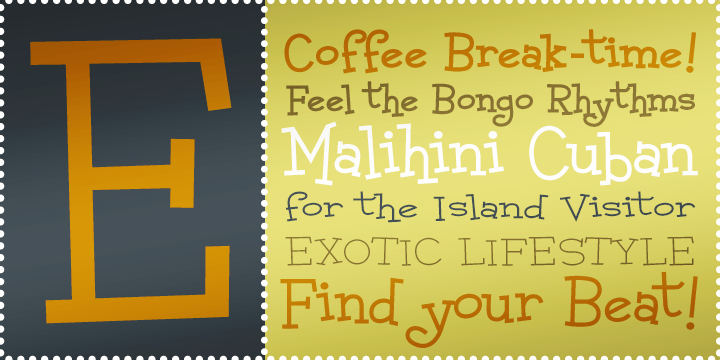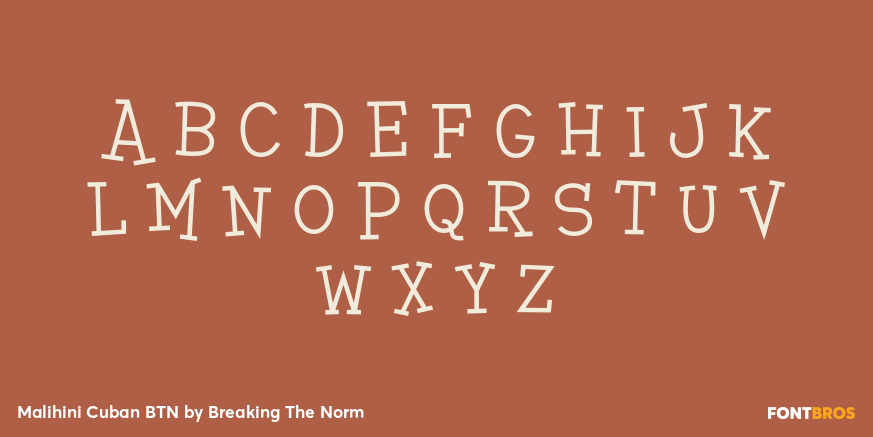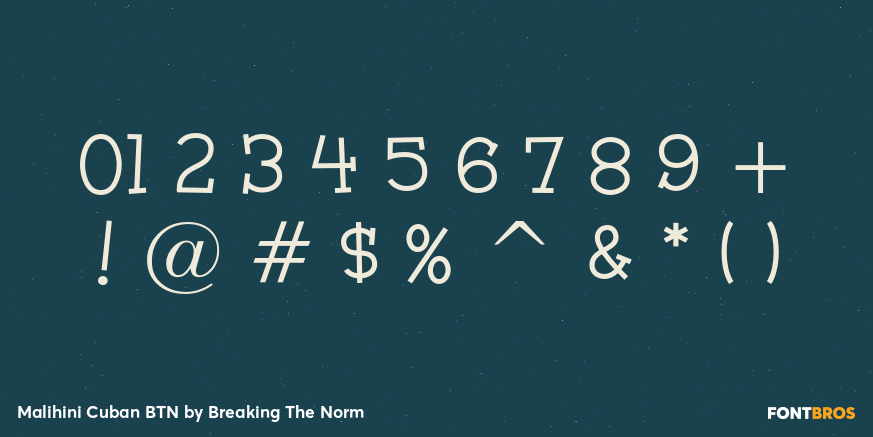
Malihini Cuban BTN
Font Family by Breaking The Norm
Malihini Cuban BTN is a playful tropical display family with a crisp, squared character and a relaxed island spirit. Created as the more angular counterpart to Malihini Tahitian, it brings a lively vacation-minded personality to the page while keeping a firmer, more structured look. The family is well suited for travel graphics, resort branding, beach promotions, restaurant design, signage, packaging, posters, and summer-themed display work. With Regular, Bold, and Expanded styles in multiple weights, Malihini Cuban BTN offers flexible options for creating cheerful tropical typography with a broad, confident presence.